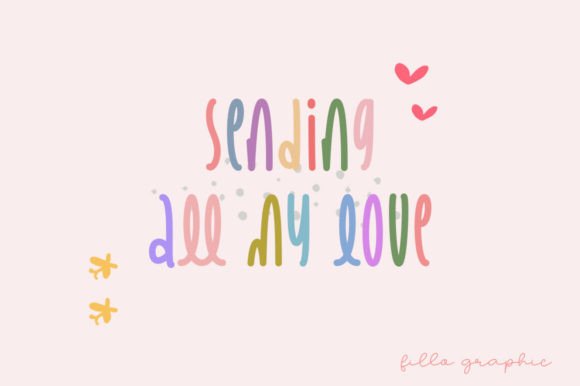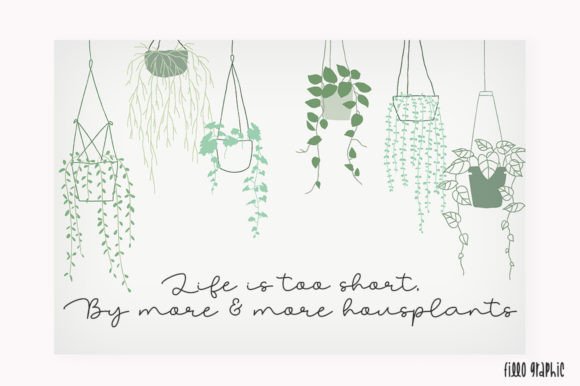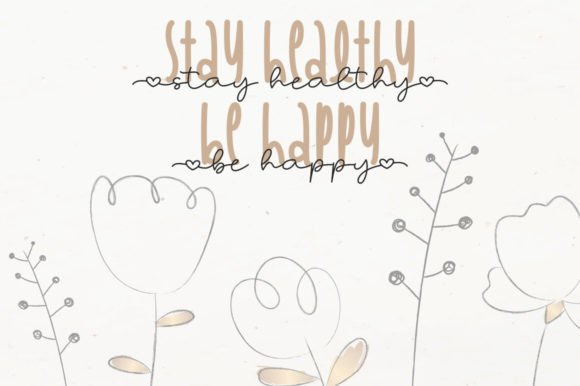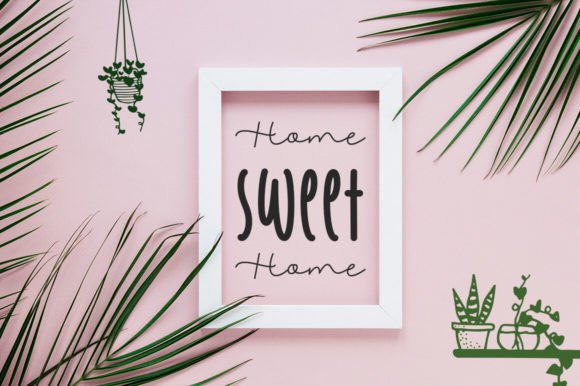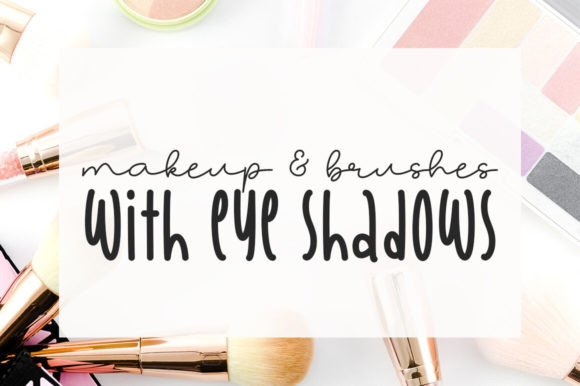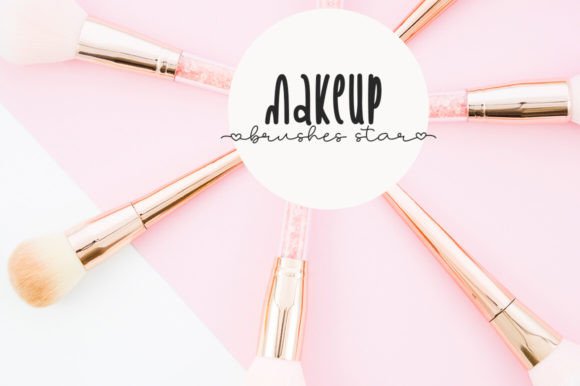
Hello Fathers Font: Elevate Your Crafts with Chic and Cheery Typography
Are you a designer or crafter looking for the perfect font to add a touch of elegance and playfulness to your projects? Look no further than Hello Fathers Font! This delightful font duo is designed to complement each other perfectly, making it an ideal choice for a wide range of creative endeavors.
What is Hello Fathers Font?
Hello Fathers Font consists of two beautiful handwritten fonts that are carefully crafted to work together in harmony. Whether used together or separately, these fonts are guaranteed to add a chic and cheery touch to your crafts, setting them apart from the rest.
Key Features of Hello Fathers Font
- Handwritten Style: Hello Fathers Font boasts a lovely handwritten style that exudes warmth and personality, making it perfect for projects that require a personal touch.
- PUA Encoding: This font is PUA (Private Use Area) encoded, which means you can easily access all glyphs and swashes, giving you greater flexibility and creative control.
- Complementary Fonts: The two fonts in the Hello Fathers Font duo are designed to complement each other perfectly, allowing you to mix and match them to create visually appealing typography.
Hello Fathers Font offers a range of benefits for designers and crafters, including:
- Ease of Use: With PUA encoding, you can effortlessly access all glyphs and swashes, making it easy to incorporate into your projects.
- Versatility: The two-font duo offers endless possibilities for creative expression, from elegant and sophisticated to playful and whimsical.
- Time-Saving: With Hello Fathers Font, you can quickly and easily add a professional touch to your projects, saving you time and effort.
Use Cases for Hello Fathers Font
Hello Fathers Font is perfect for a wide range of projects, including:
- Stationery and Invitations: Add a touch of elegance and sophistication to your stationery and invitations with Hello Fathers Font.
- Crafting and Scrapbooking: Bring your crafts and scrapbooking projects to life with the playful and whimsical style of Hello Fathers Font.
- Branding and Packaging: Use Hello Fathers Font to create eye-catching branding and packaging that stands out from the crowd.
Tips for Getting the Most Out of Hello Fathers Font
To get the most out of Hello Fathers Font, try the following tips:
- Experiment with Font Pairings: Try pairing Hello Fathers Font with other fonts to create unique and interesting typography.
- Play with Swashes and Glyphs: Take advantage of the PUA encoding to access all glyphs and swashes, adding a personal touch to your projects.
- Use in Combination with Images: Combine Hello Fathers Font with beautiful images to create stunning visual compositions.